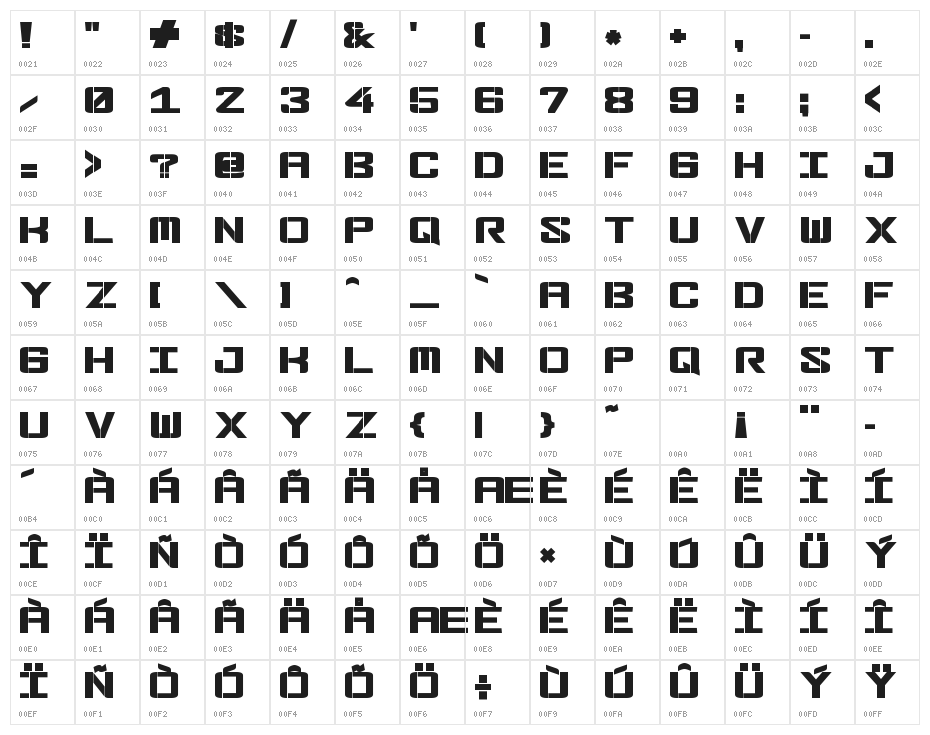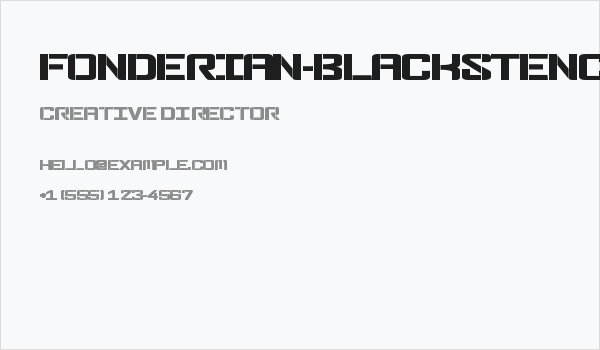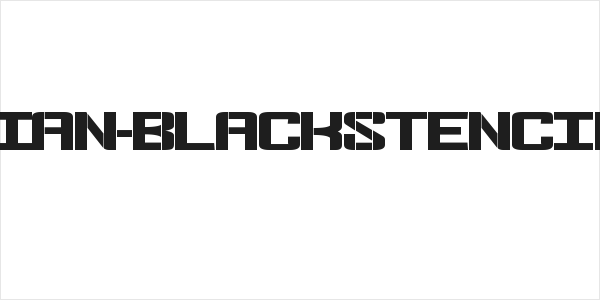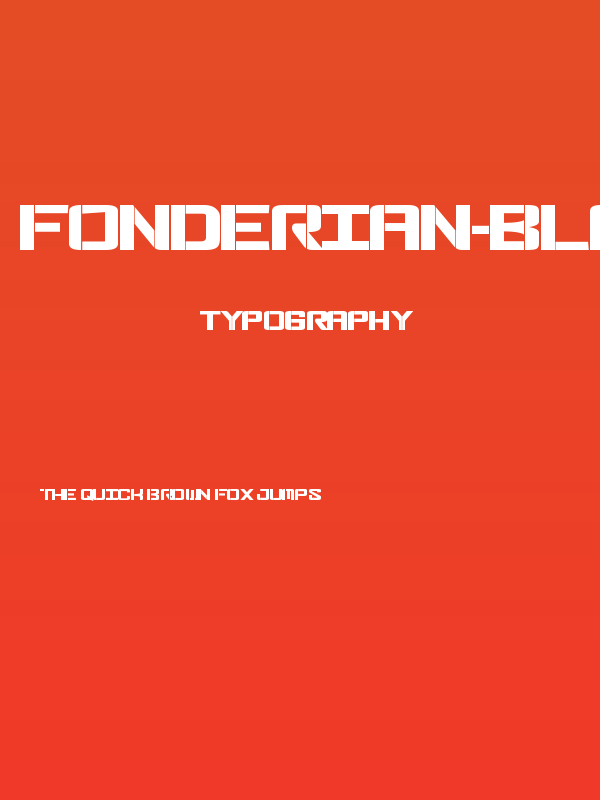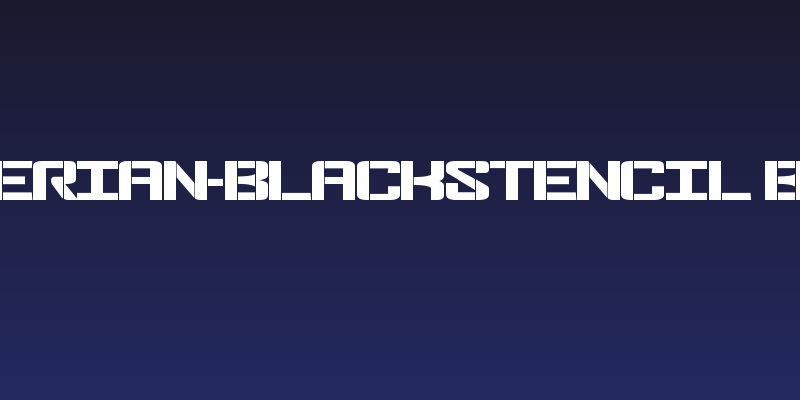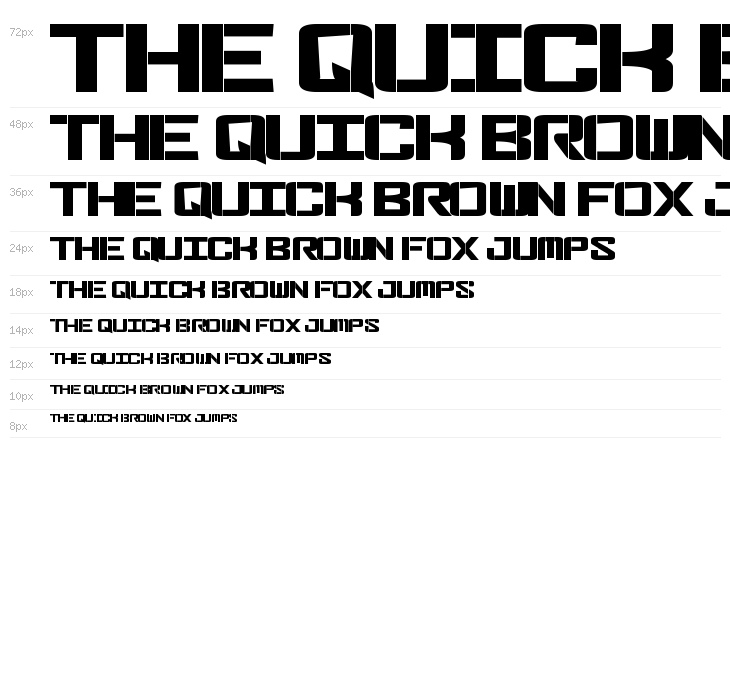
Fonderian-BlackStencil Black Font
Fonderian-BlackStencil Black Description
This font features a bold, stencil-like design with strong geometric shapes and high contrast. The characters are constructed with thick lines and distinct cutouts, giving it a modern, industrial feel. The uppercase and lowercase letters maintain a consistent style, with the cutouts adding a unique visual interest. Numbers and special characters follow the same design principles, ensuring uniformity across all glyphs. The font's boldness and distinct style make it suitable for attention-grabbing designs. Its stencil characteristics suggest a utilitarian, yet stylish approach, perfect for projects that require a strong visual impact.
| Proposed Projects | Ideal for branding, posters, signage, and any project requiring a bold, industrial look. |